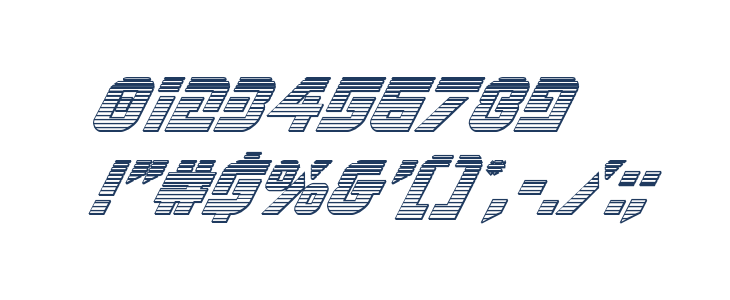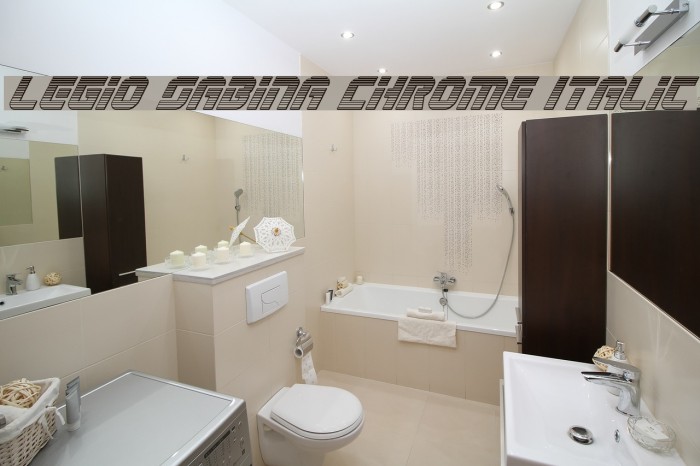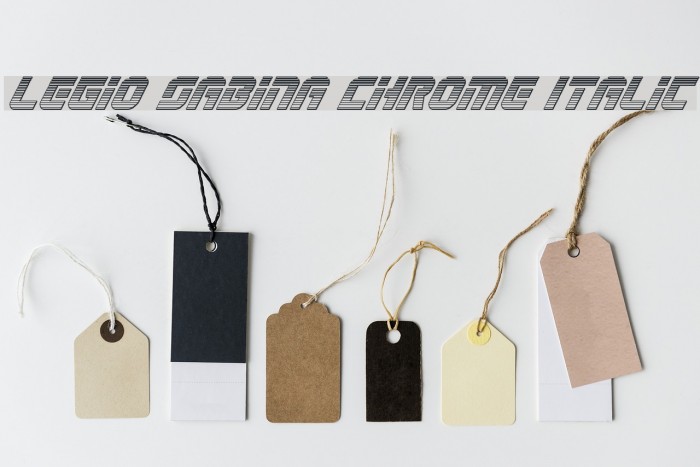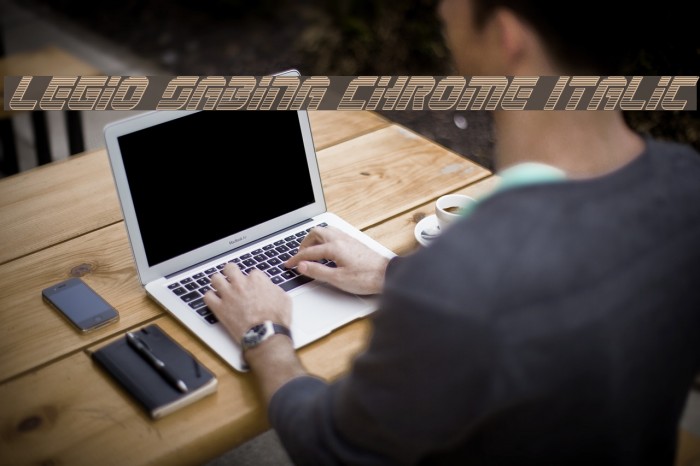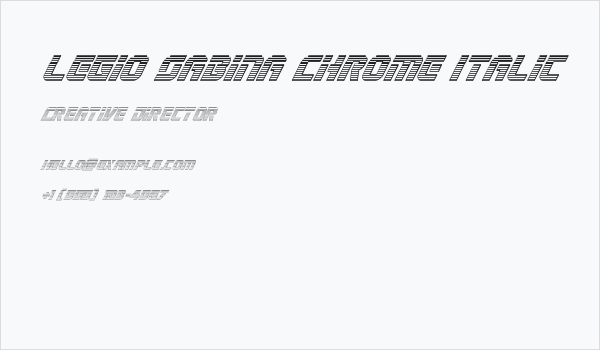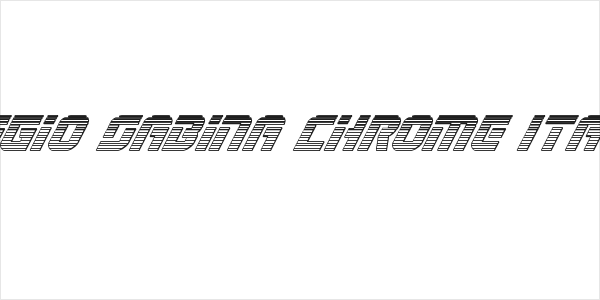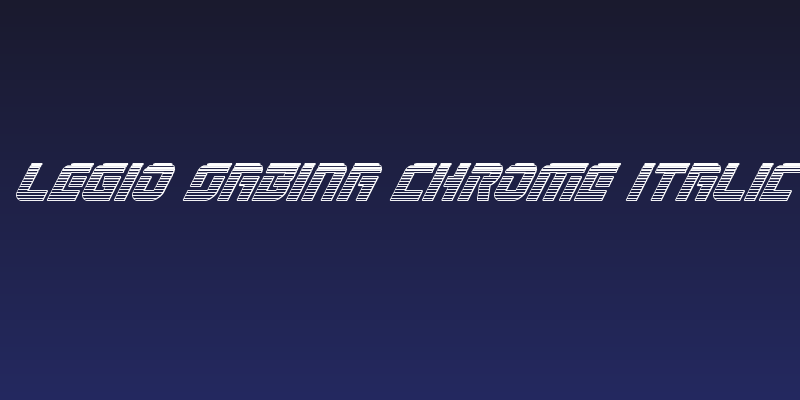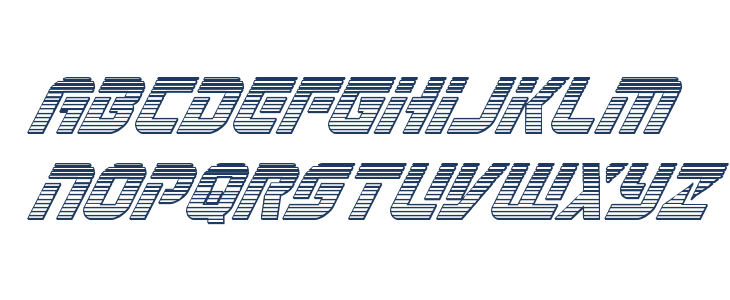
Legio Sabina Chrome Italic Font
Legio Sabina Chrome Italic Description
This font features a bold, futuristic design with a distinct chrome-like appearance. The characters are italicized, giving them a dynamic and forward-leaning posture. Each letter is composed of multiple parallel lines, creating a striped effect that adds depth and texture. The overall look is sleek and modern, making it ideal for projects that require a high-tech or industrial aesthetic. The font includes both uppercase and lowercase letters, numbers, and a variety of special characters, ensuring versatility in design applications.